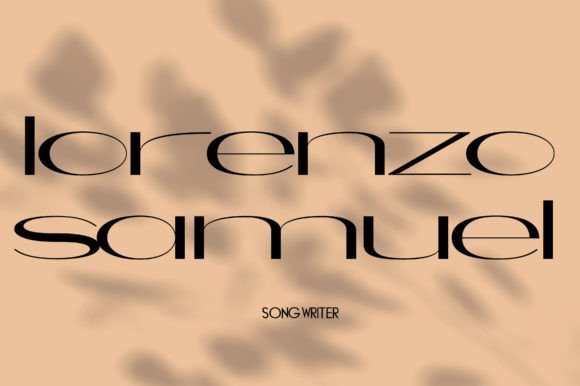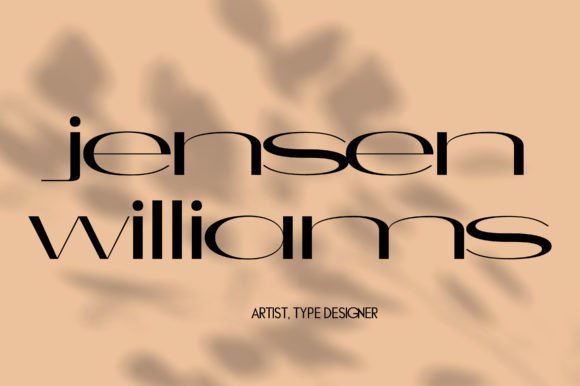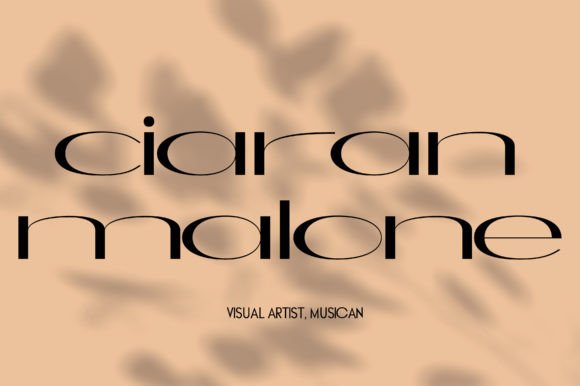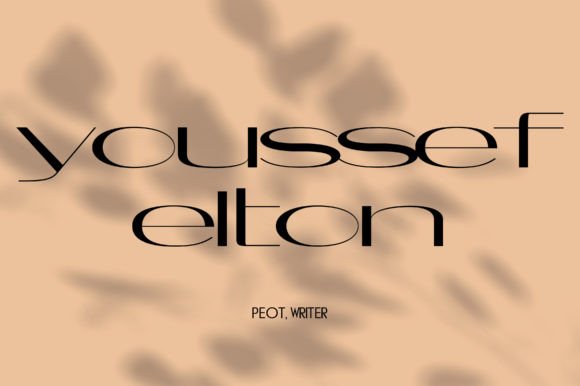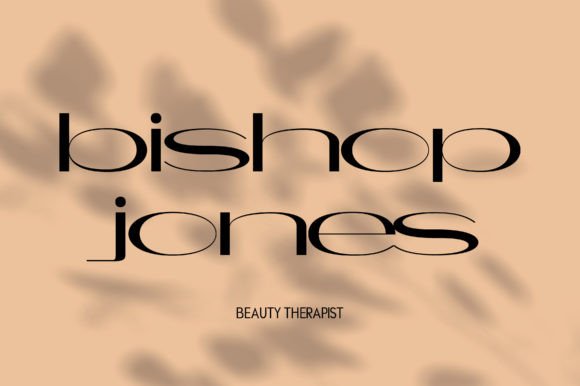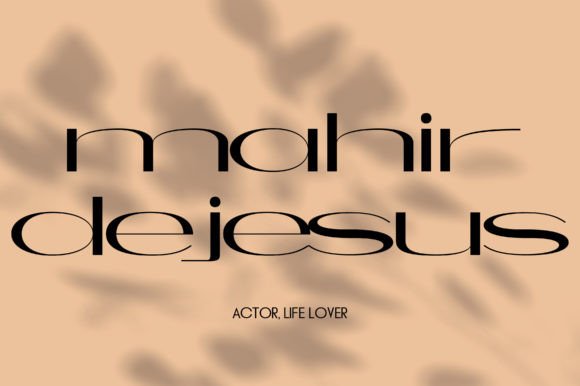
I still remember the frustration of working on a project, hours spent crafting the perfect design, only to realize that the font I chose just wasn’t cutting it. The client wanted something sleek and sophisticated, but the font I had selected was, well, a bit of a mess. I was working on a branding project for a luxury fashion brand, and I needed a font that exuded elegance and minimalism. That’s when I stumbled upon Doblier Font, and let me tell you, it was a game-changer! 😊
Introducing Doblier Font
Doblier is a sleek and sophisticated sans-serif font that exudes elegance and minimalism. With over 600 glyphs, this font offers a wide range of characters, symbols, and accents that can be used in any language. Doblier’s multilingual support makes it the perfect choice for designers who work with global clients or need to create designs in multiple languages.
- ✨ **Clean lines and simple design**: Doblier’s minimalist style ensures that it can be used in a variety of contexts without overwhelming the content or design.
- ✅ **Multilingual support**: With over 600 glyphs, Doblier offers a wide range of characters, symbols, and accents that can be used in any language.
- 💻 **Versatility**: Doblier is perfect for a wide range of applications, from branding and logo design to editorial and web design.
⚠️ While Doblier is an amazing font, I did notice that some of the glyphs can be a bit finicky when it comes to kerning. However, this is a minor quibble, and overall, the font is incredibly well-designed.
🤔 One thing to note is that Doblier is a relatively new font, and as such, it may not be as widely supported by older software or systems. However, this is a rare occurrence, and most modern design software will have no issues with Doblier.
The Designer Inspiration Behind Doblier
Doblier was designed with the modern designer in mind. The font’s creator, a talented typographer, wanted to create a font that was both elegant and versatile. Inspired by the clean lines and simple design of modern architecture, Doblier is the perfect choice for designers who want to create sophisticated and timeless designs.
| Font Name | Doblier Font |
| Author | Minimalistartstudio |
| What is Doblier Font? | Doblier Font is a sleek and sophisticated sans-serif font with over 600 glyphs, making it perfect for multilingual designs. |
| What is the best way to use Doblier? | Doblier is perfect for a wide range of applications, from branding and logo design to editorial and web design. Its minimalist style ensures that it can be used in a variety of contexts without overwhelming the content or design. |